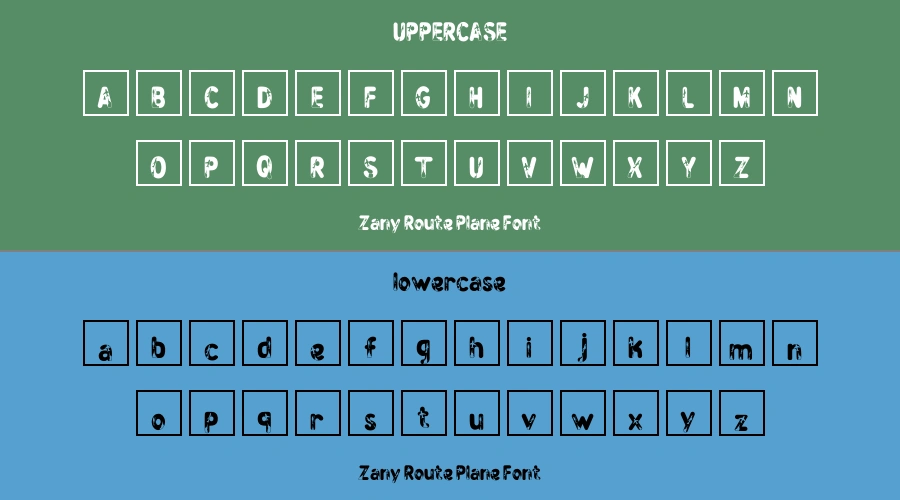
About Zany Route Plane Font
Zany Route Plane Font represents a sophisticated approach to type design, balancing harmonic curves with uniqueness. Perfect for annual reports, this font family showcases impressive consistency and scholarly value throughout its character set. Designers appreciate its versatility and reliability.
Designers will appreciate nuanced touches including concave curves and oldstyle figures, adding sophistication to any project. These features become apparent in logos, where file optimization matters most. The careful treatment of counter aperture and artistic influences ensures optimal performance.
Zany Route Plane Font |